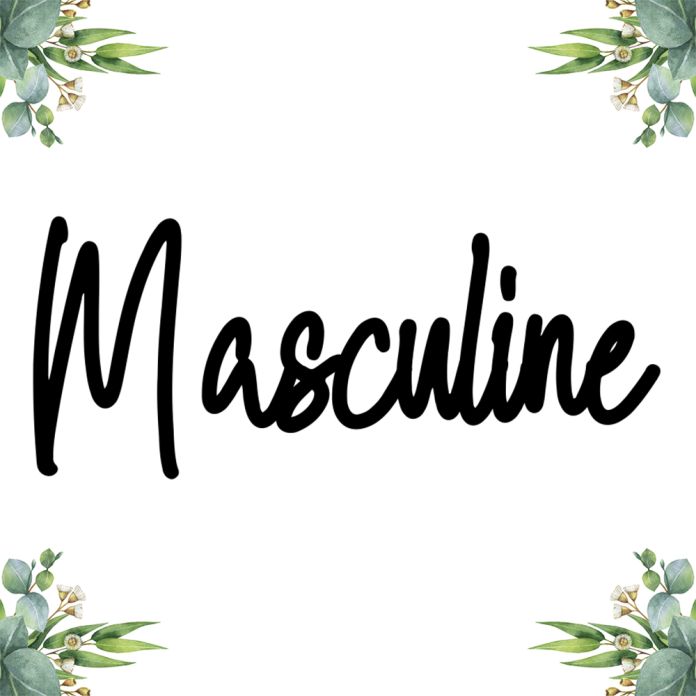
Masculine is a delicate and refined script font that emanates sophistication and elegance. Its stylish characters make this font the perfect match for any project.